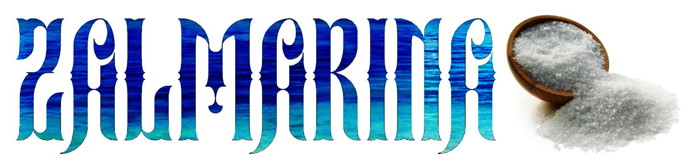
• Some alternatives to the "long leg" are in these glyphs: < for K short, > for R short, [ for h long, ] for k long and ^ for A long.
Some alternatives to the "long leg" are in these glyphs: < for K short, > for R short, [ for h long, ] for k long and ^ for A long.
Amazing! Really beautiful.
How curvy and organic the shapes. 60s groovy. Excellent.
Beautiful. Imagine a text set in Zalmarina illuminated with gold leaf. 10/10
Beautifully elegant work
A western inspired font with some Victorian elegance. Congratulations on the TP. 10/10
very elegant love it